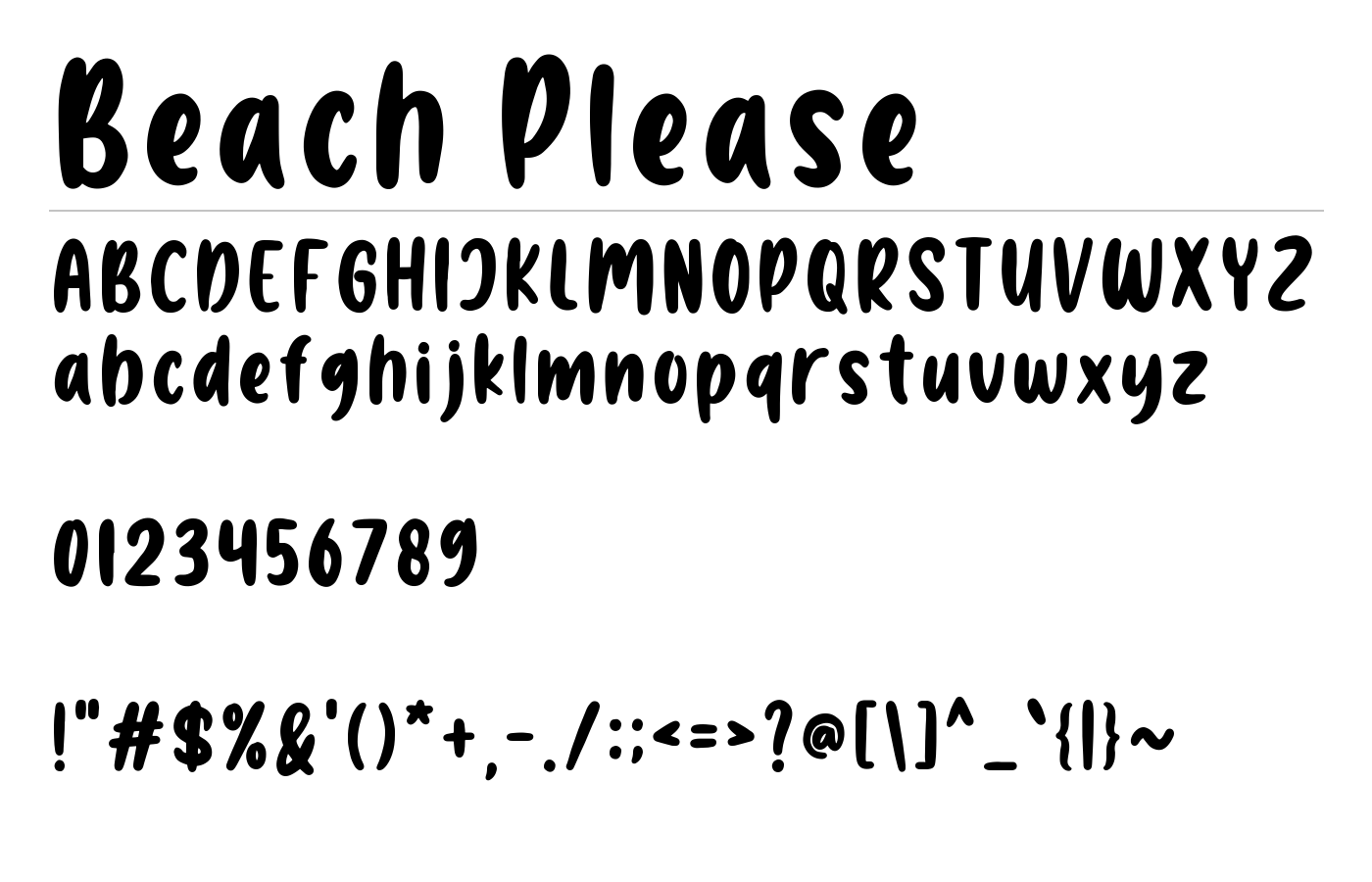
Beach Please is a playful, hand-drawn sans serif font with a casual, friendly feel. Its rounded, slightly irregular letterforms and moderate weight give it a warm and approachable look, perfect for creative, fun, and informal designs. This font works especially well for branding, social media graphics, and lifestyle projects that want to convey a relaxed, beachy vibe.
Beach Please Font
About Beach Please Font